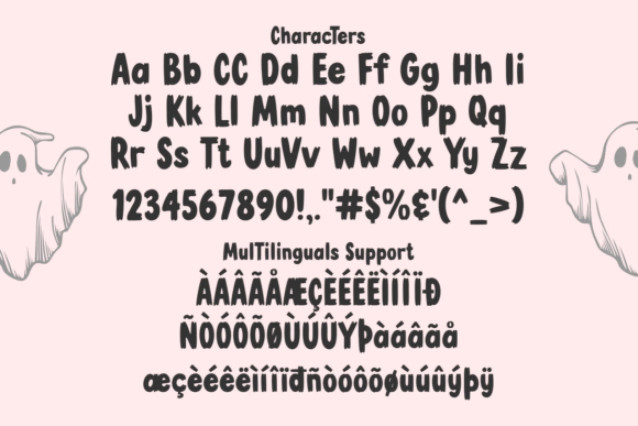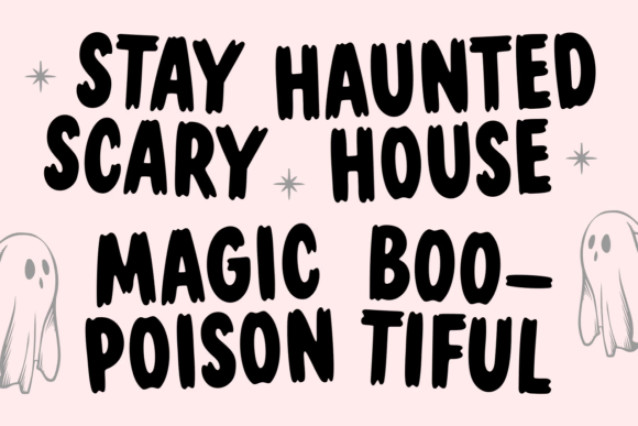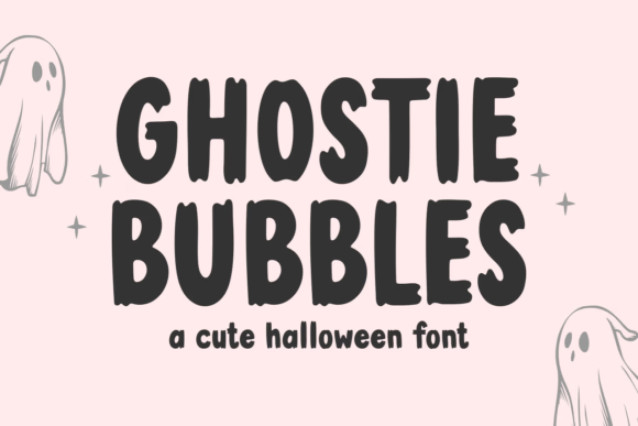
Ghostie Bubbles Font
Ghostie Bubbles typeface is a cute Halloween display font that combines spooky charm with bubbly fun. With its rounded, playful letters and a touch of ghostly character, this font is perfect for designs that want to capture the magic of Halloween without being too scary.
Ideal for party invitations, trick-or-treat bags, children’s books, seasonal crafts, stickers, social media posts, and more, Ghostie Bubbles font brings a friendly haunted vibe to any project. Its bold and whimsical style makes it especially great for kid-friendly Halloween themes and cheerful seasonal branding.
Whether you’re designing for festive Halloween events, spooky yet sweet merchandise, or playful seasonal promotions, the Ghostie Bubbles font will add a delightful haunted touch to your work.